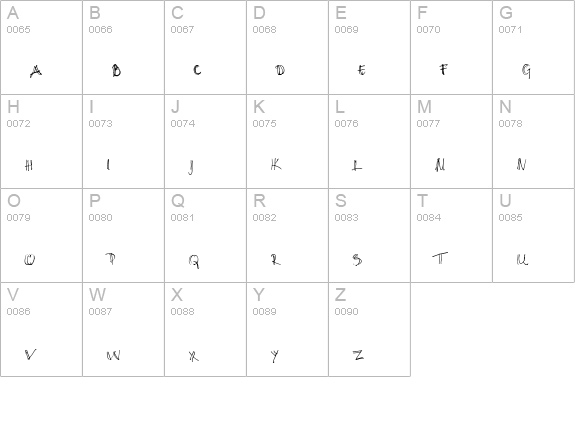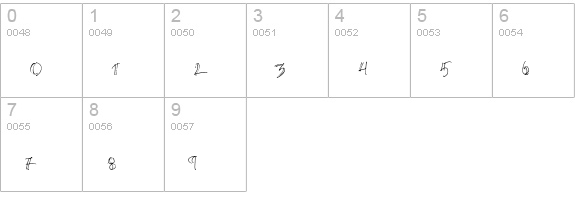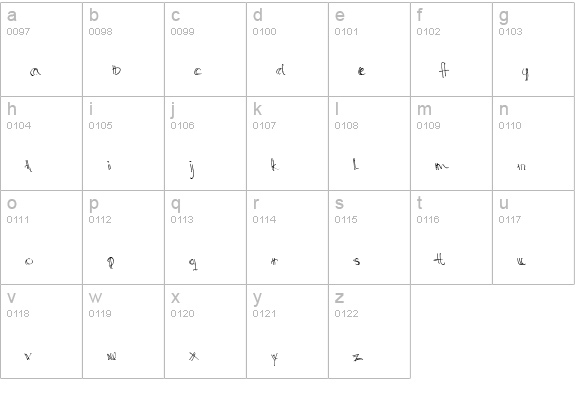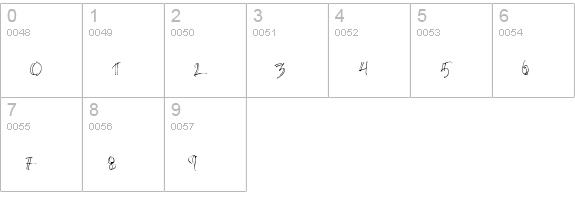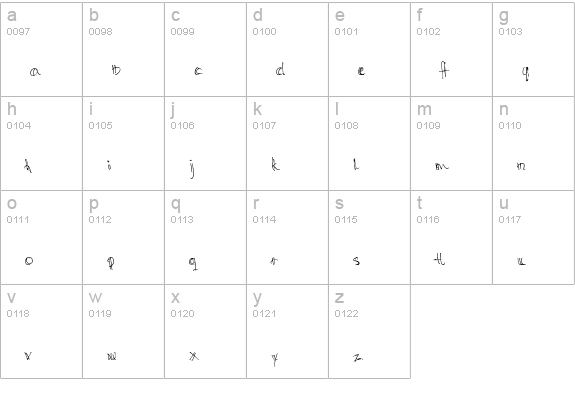
Addiction Font Details
Introducing Addiction font, a captivating and stylish typeface that will add a touch of elegance to your design projects. This unique font features sleek lines and modern curves, making it perfect for a wide range of applications, from branding to editorial design. Addiction font is designed to make a lasting impression, with its sophisticated yet approachable style. Whether you're creating a logo, poster, or website, this font will help you stand out from the crowd and make a statement. The best part? Addiction font is available for free download at FontsMarket.com. So go ahead and elevate your designs with this stunning typeface today!